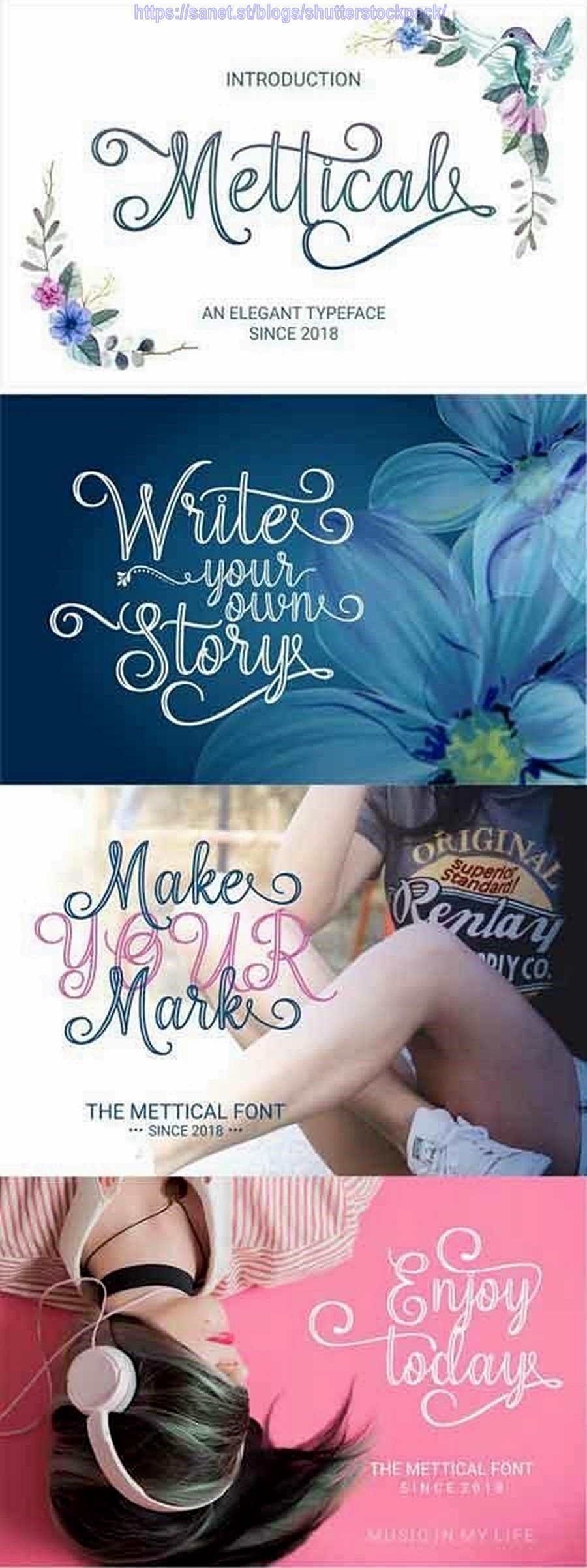
Mettical Fonts 2555974
Mettical is a beautiful handwriting with the usual calligraphic style; This font is the best way to give you a sensible and romantic look. It features decorative characters and dancing baselines!
This typeface has been enriched with additional alternative characters up to +550 glyphs ( ligature + Alternative character + more ) . Hopefully useful to capture the soul of design. match the design on your wedding invitations, fashion brand, and beautify various other designs. Language Support.